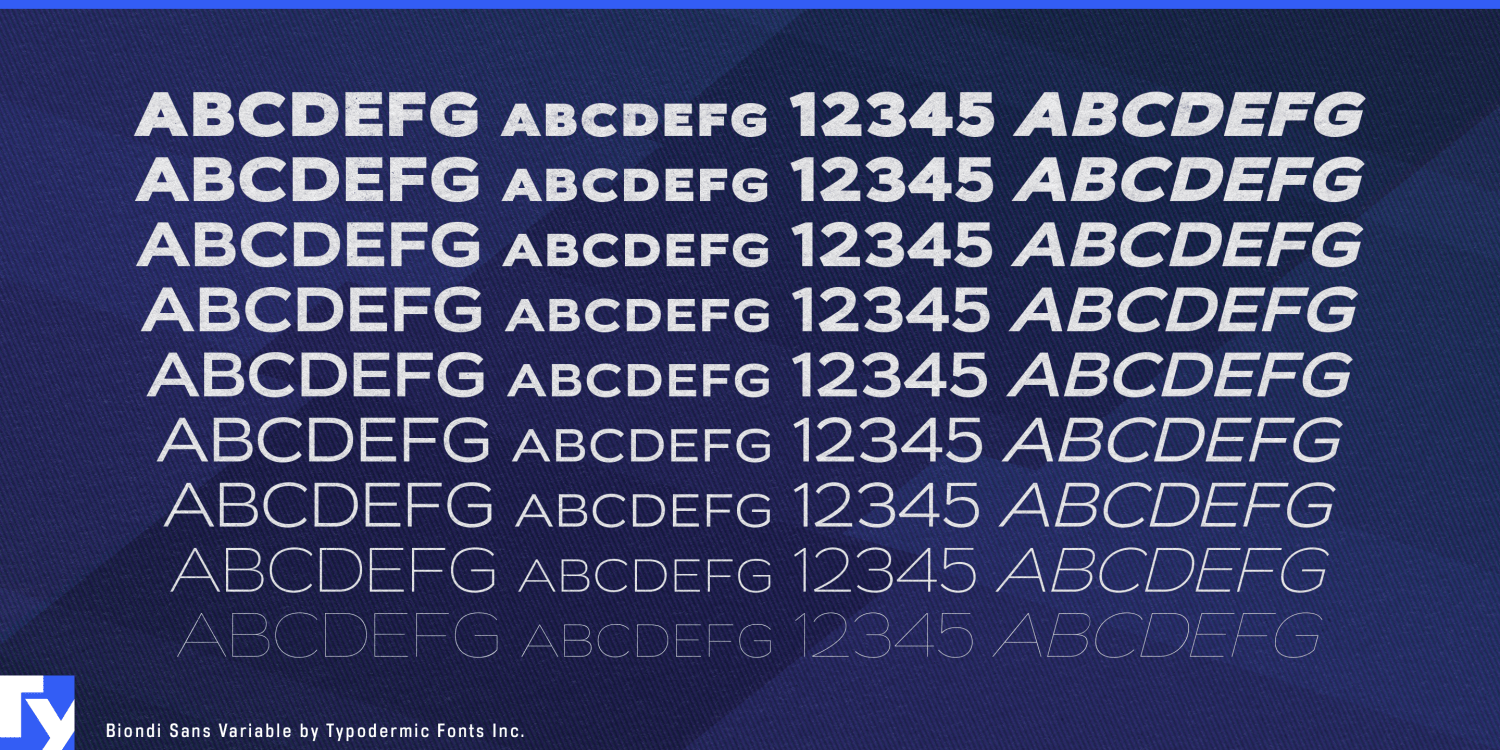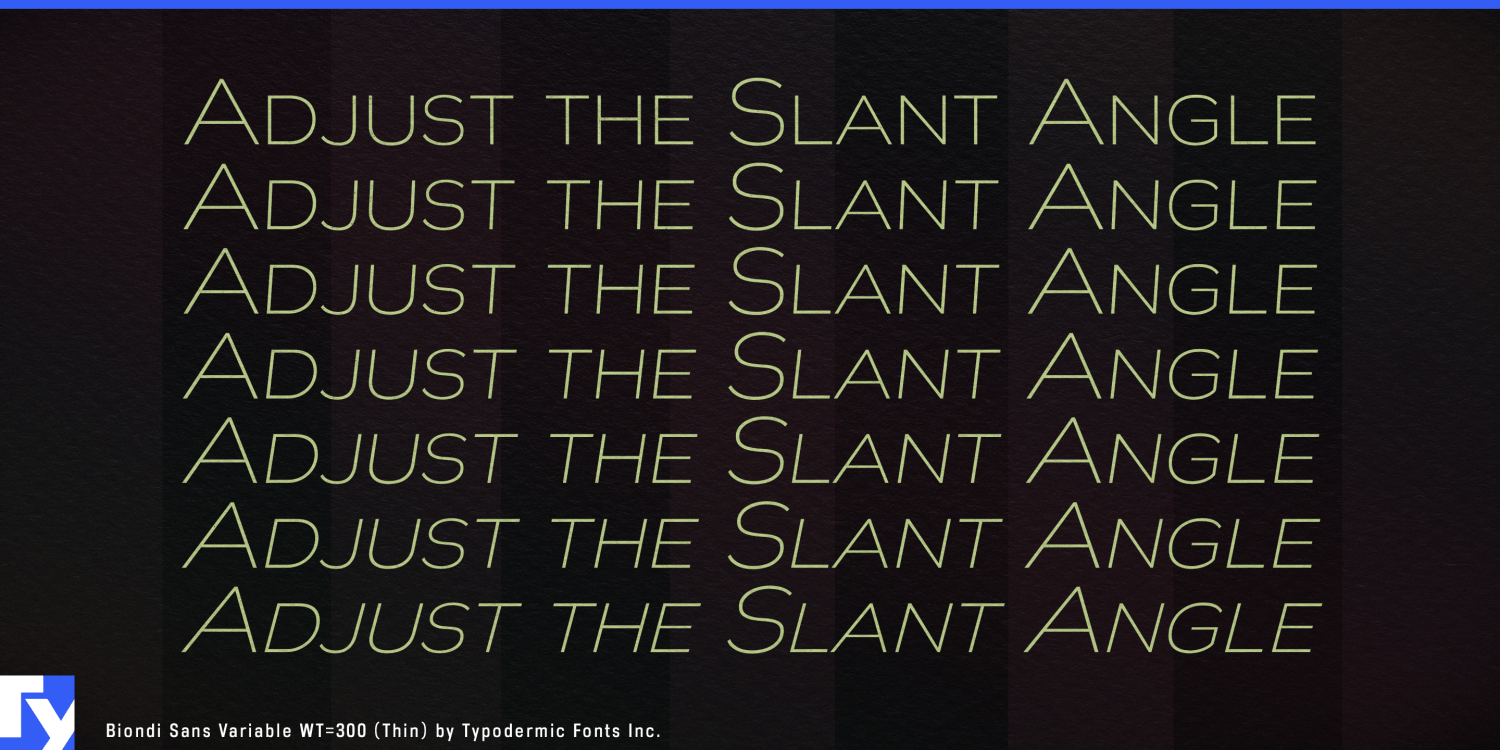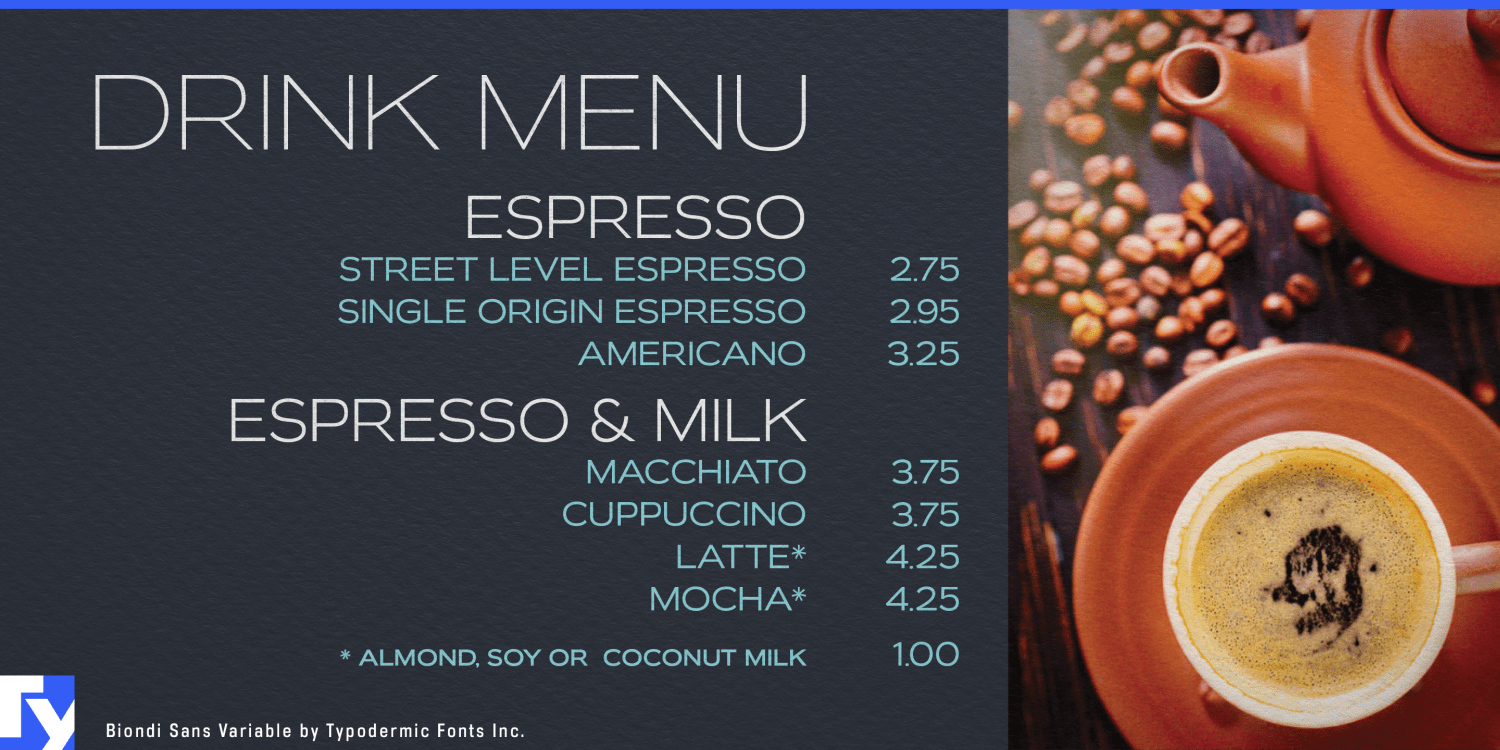
Meet Biondi Sans Variable, a sophisticated evolution of classic American typography reimagined for the age of dynamic design. Drawing inspiration from Morris Fuller Benton’s legendary Copperplate, this typeface marries the refinement of early 20th-century…